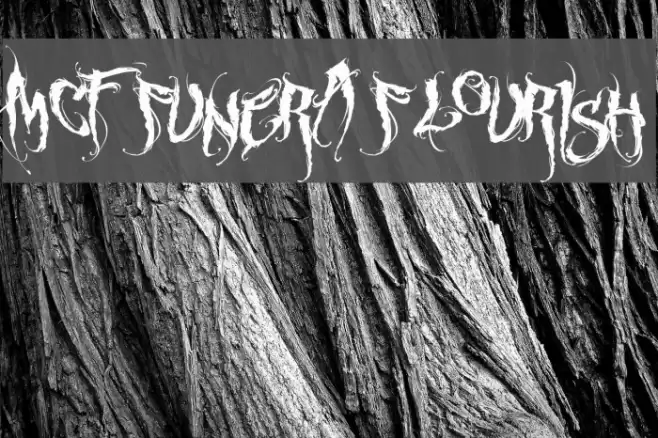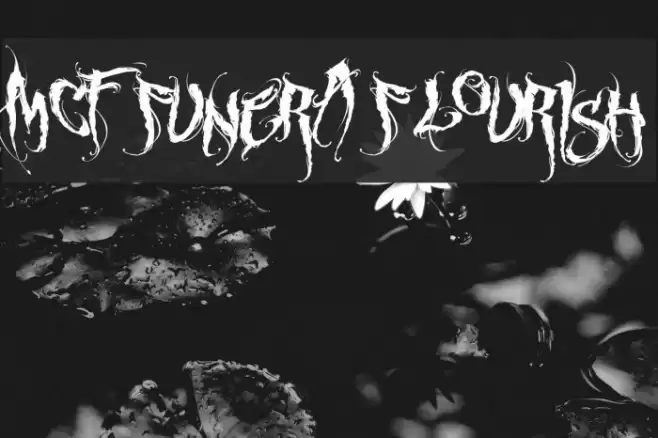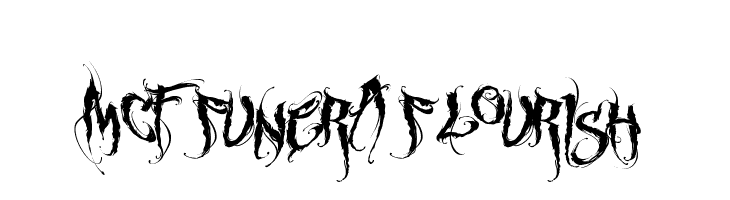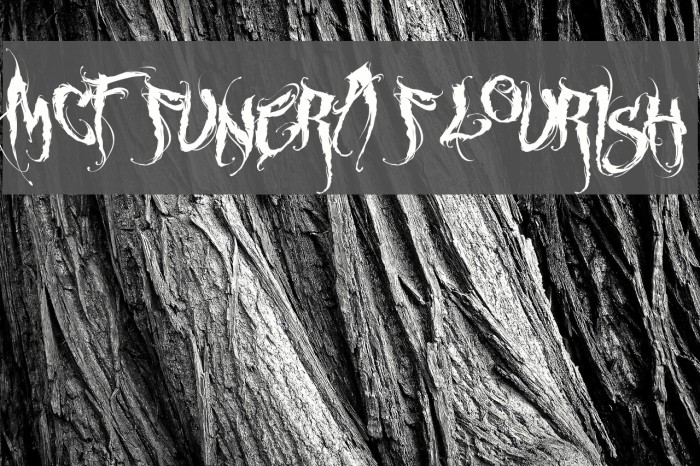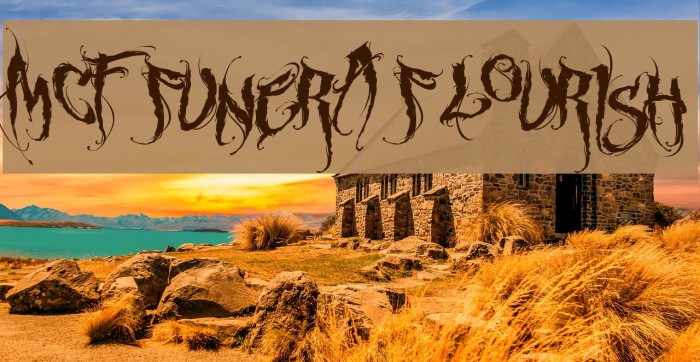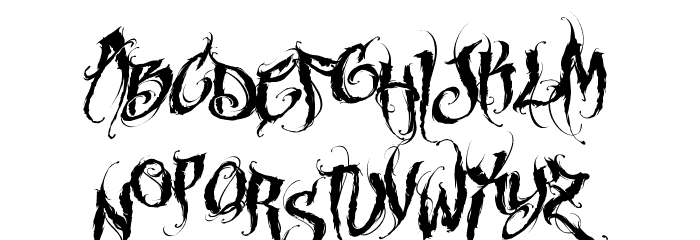
MCF funera flourish Font
MCF funera flourish Description
This font is a highly decorative and artistic typeface characterized by its intricate flourishes and elaborate design. Each letter is adorned with swirling embellishments that give it a gothic and mysterious appearance. The strokes are bold and dynamic, with a high contrast between thick and thin lines, creating a dramatic visual impact. The overall style is reminiscent of calligraphic and tattoo art, making it suitable for projects that require a unique and eye-catching aesthetic. The font's ornate nature suggests a sense of elegance and sophistication, while its boldness conveys strength and intensity.
A decorative and gothic font with intricate flourishes and high contrast strokes from Uncategorized fonts.
- Proposed Projects: Ideal for tattoo designs, album covers, gothic-themed posters, and artistic branding.
- Overall Style: Gothic, Decorative
- Use Case: Logos, Posters, Artistic projects